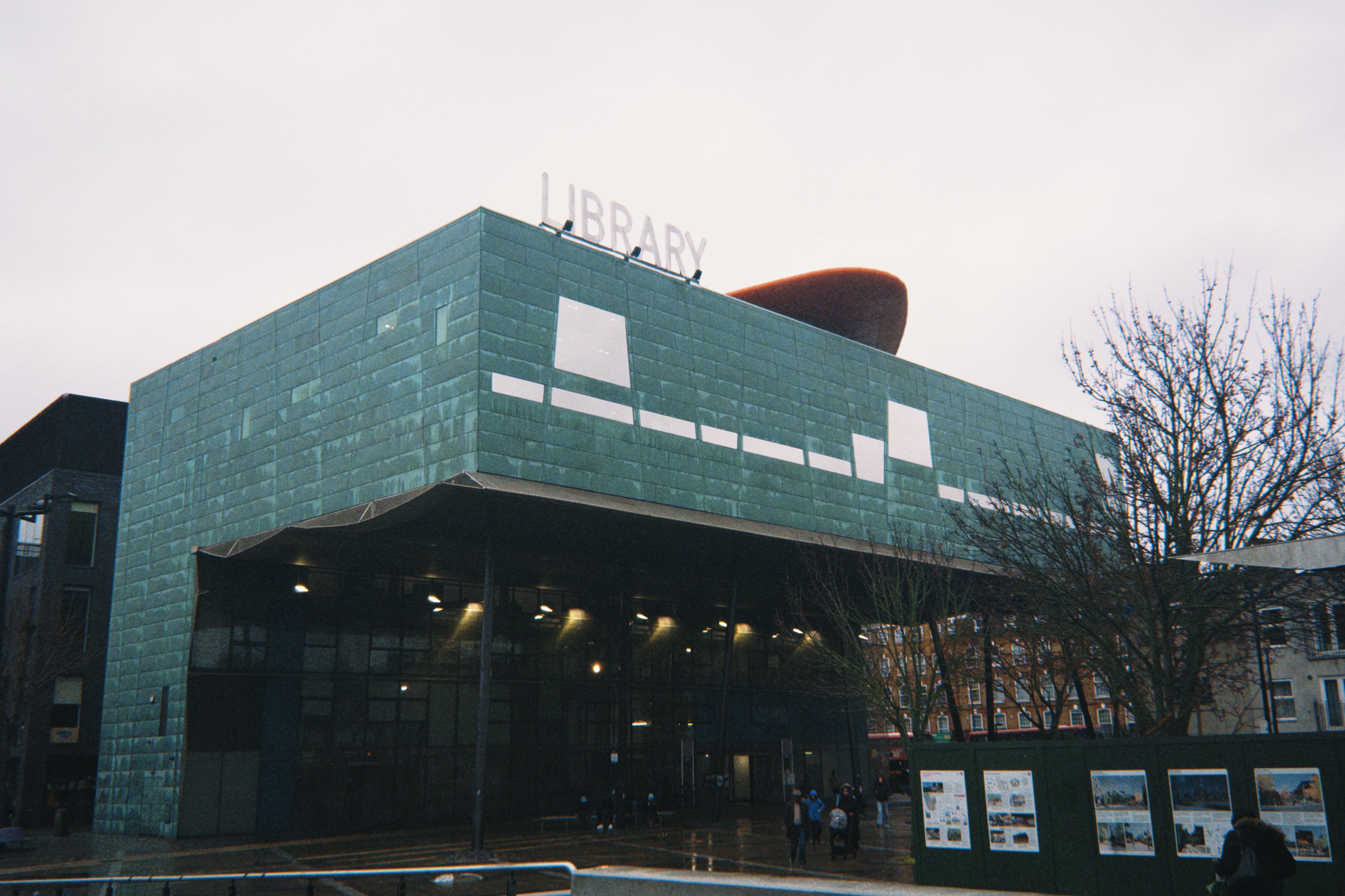
My typeface is inspired by the architectural form of Peckham Library. The building resembles an inverted book supported by slender stilts, creating a strong visual contrast between heaviness and lightness. Inside the library, the reading rooms appear suspended, almost like UFOs, reinforcing the feeling of being held up rather than grounded. This spatial quality influenced my type design. The letterforms emphasize a top-heavy structure with lighter bases, echoing the sense of support and balance found in the architecture. Based on this structural idea, I named the typeface 'Stilt.'
STILT
By Reyna Jin